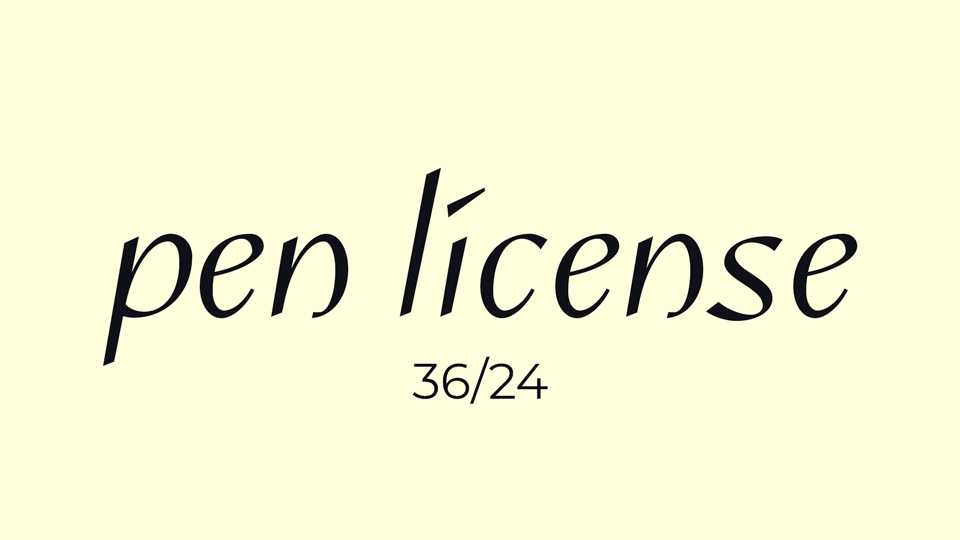
Download Pen License font, a display typeface, an attempt at a traditional italic alphabet. The font has contemporary details such as asymmetric serifs, sharp edges and unconventional glyph shape.
Designer: Justin Penner